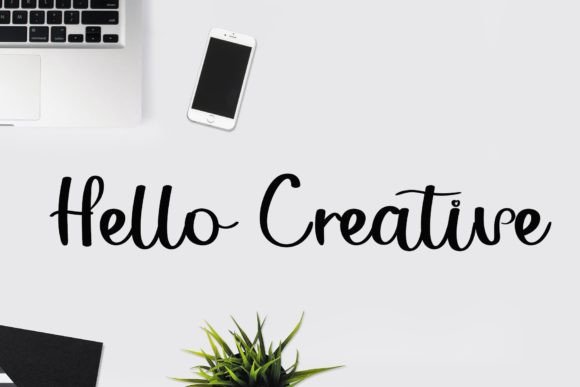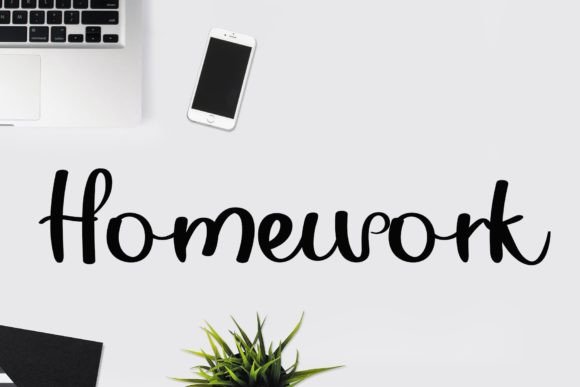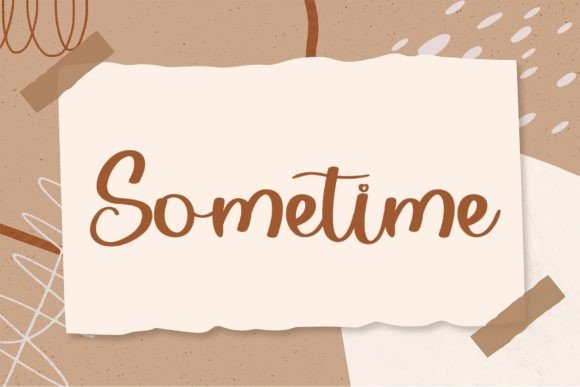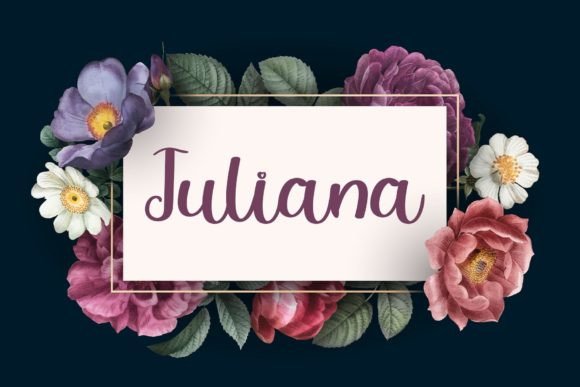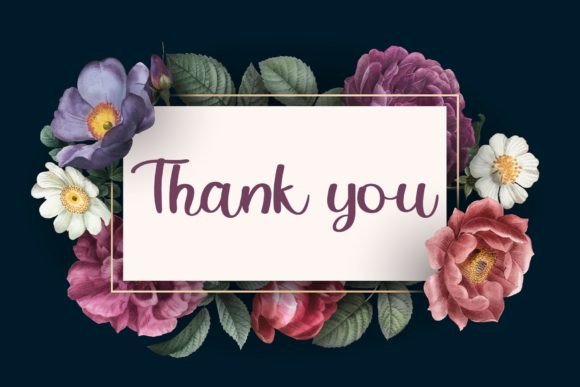
Sublimation Font
About Sublimation Font
“Sublimation” is a sweet and beautiful handwritten font that adds a touch of luxury to your design projects. With characters that dance along the baseline, this font exudes a unique charm that sets it apart. Whether you’re working on branding, invitations, posters, or any other creative project, “Sublimation” brings a distinctive and elegant spark.
The handwritten quality of “Sublimation” adds a personal and artistic touch to your text, creating an authentic and stylish look. The characters dancing along the baseline contribute to a dynamic and lively aesthetic, adding movement and flair to your designs.
Picture “Sublimation” enhancing a luxury brand’s logo, where its sweet and beautiful script creates a sense of sophistication. Envision it on invitations, bringing an elegant and personalized touch to special events. Imagine it on posters, where its unique charm captures attention and makes a lasting impression.
In summary, “Sublimation” is more than just a font; it’s a design element that brings sweetness, beauty, and luxury to your projects. Embrace its distinctive handwritten style and let it be the spark that elevates your design endeavors, making them stand out with elegance and charm.